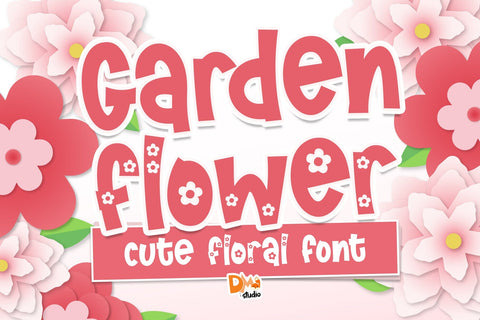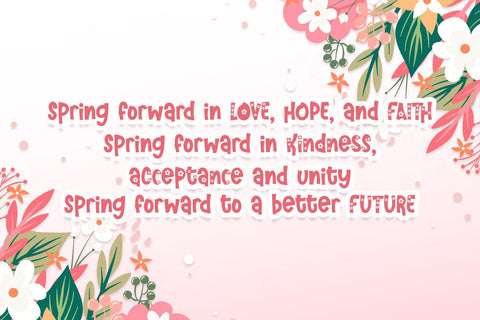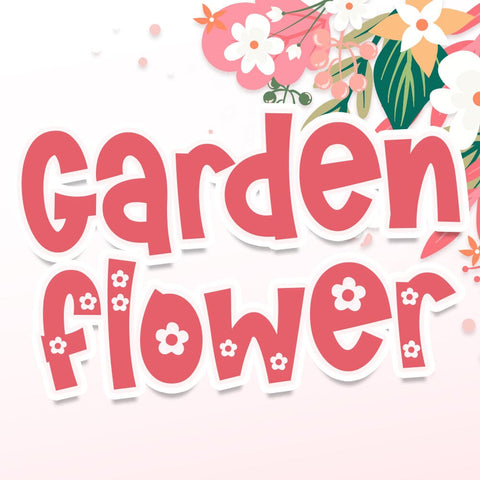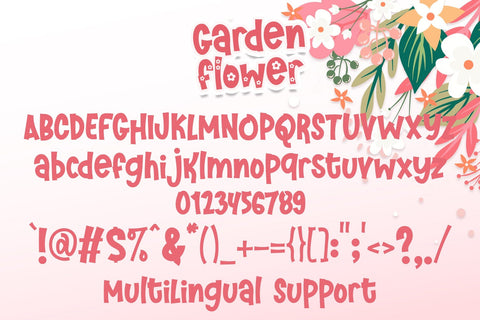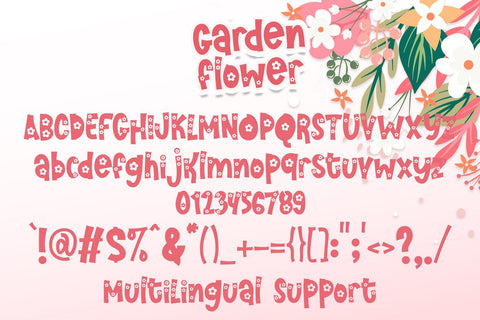
Garden Flower Font
Garden Flower Font is a graceful and organic typeface that brings the beauty of blooming gardens to your designs. Inspired by delicate flowers and natural elegance, this font is perfect for projects that require a touch of botanical charm. Crafted with precision, the font seamlessly combines floral elements with versatile letterforms, making it ideal for a wide range of design applications.
- Botanical Elegance: The Garden Flower Font embodies the delicate and intricate beauty of garden blooms, infusing your text with a natural and graceful aesthetic.
- Versatile Design: With its carefully crafted letterforms, this font is versatile and well-suited for a variety of design projects, including branding, invitations, packaging, and more.
- Botanical Branding: Create stunning and unique branding materials for floral shops, natural products, or any business that seeks a touch of botanical elegance.
- Invitations and Stationery: Design enchanting invitations, wedding stationery, or greeting cards with a floral flair that captivates your audience.
- Packaging Design: Elevate your product packaging with the natural charm of the Garden Flower Font, making your products stand out on the shelves.
Unleash the natural elegance of the Garden Flower Font in your designs. Elevate your projects with the grace of blooming gardens, creating a captivating visual experience for your audience.